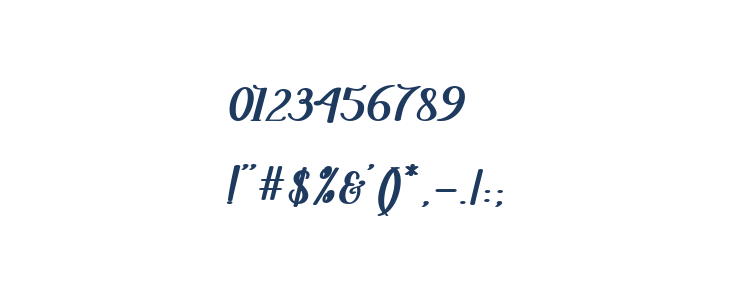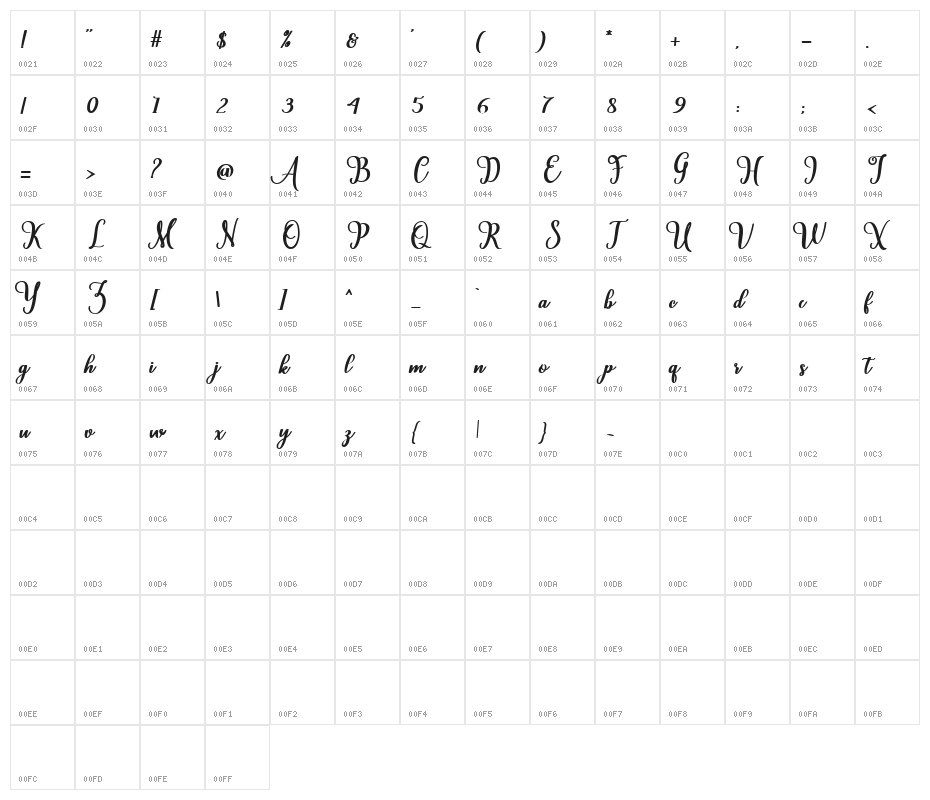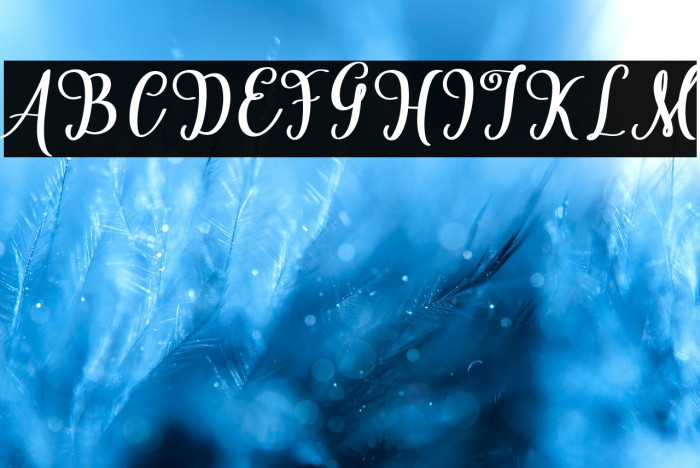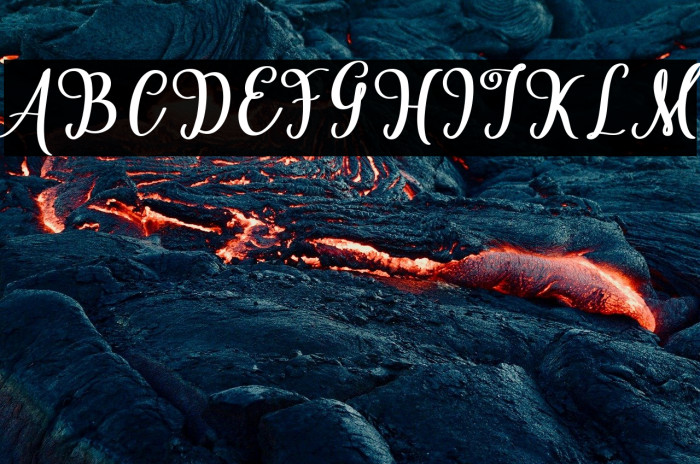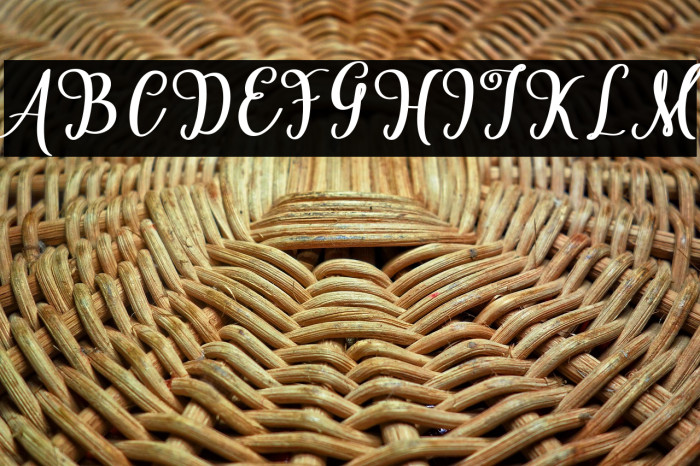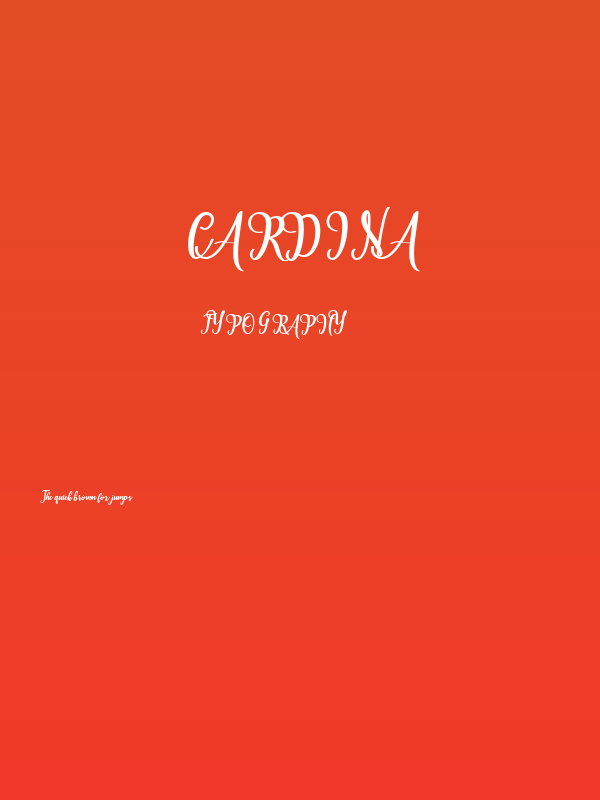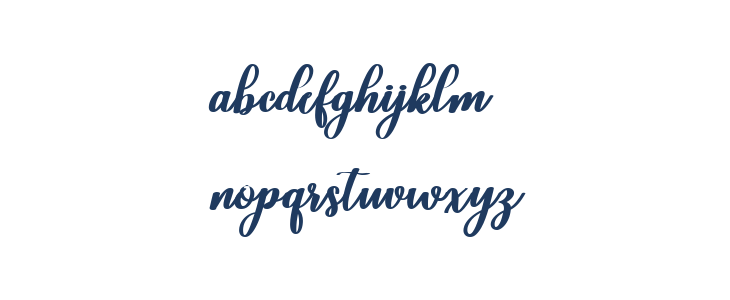
Cardina Font
Cardina Description
This font exhibits a stylish and elegant script design, characterized by its flowing and connected letterforms. The uppercase letters feature graceful curves and loops, giving them a sophisticated appearance. The lowercase letters maintain a consistent flow, with some letters extending below the baseline, adding to the font's dynamic nature. The numerals are clear and bold, ensuring readability while maintaining the overall aesthetic. Special characters are well-integrated, complementing the script style. This font is ideal for projects that require a touch of elegance and flair.
| Proposed Projects | Ideal for wedding invitations, branding, elegant logos, and decorative headlines. |